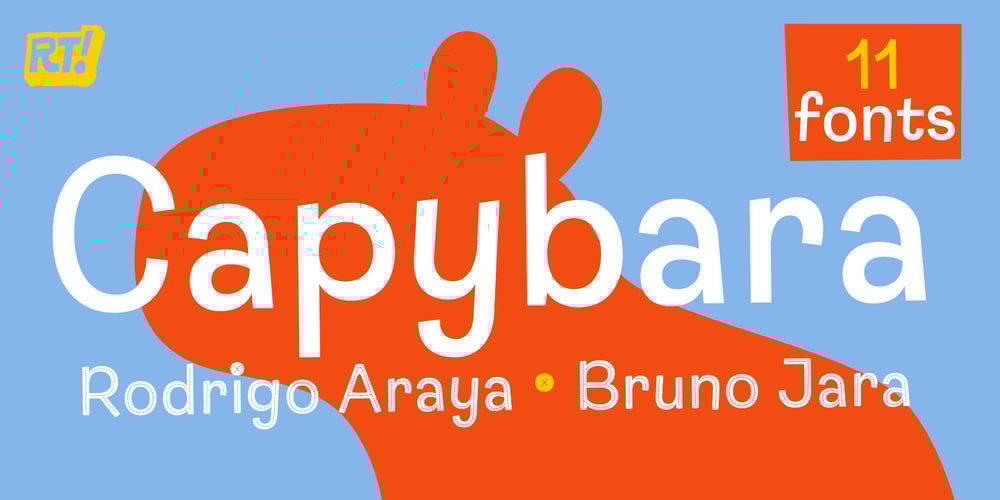
Capybara Font Family was designed by Rodrigo Araya Salas, Bruno Jara Ahumada and published by RodrigoTypo. Capybara contains 11 styles and family package options. Capybara is an informal, thin, almost Regular weight typeface, perfect for youth and children’s titles and logos, it contains Cyrillic alphabet, alternatives, ligatures, and different styles of Stencil, Rough, Spring, Dingbats & Catchwords.